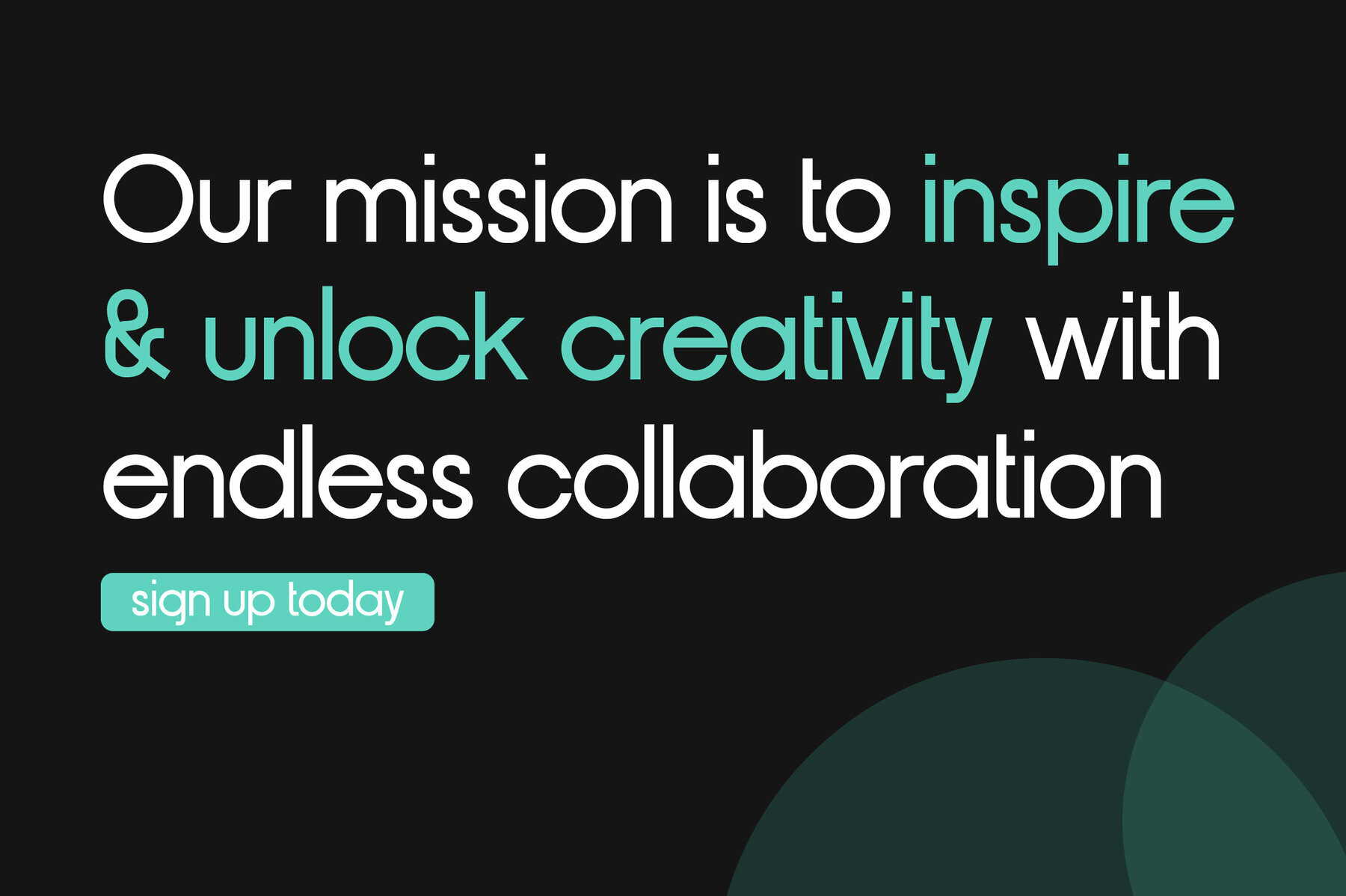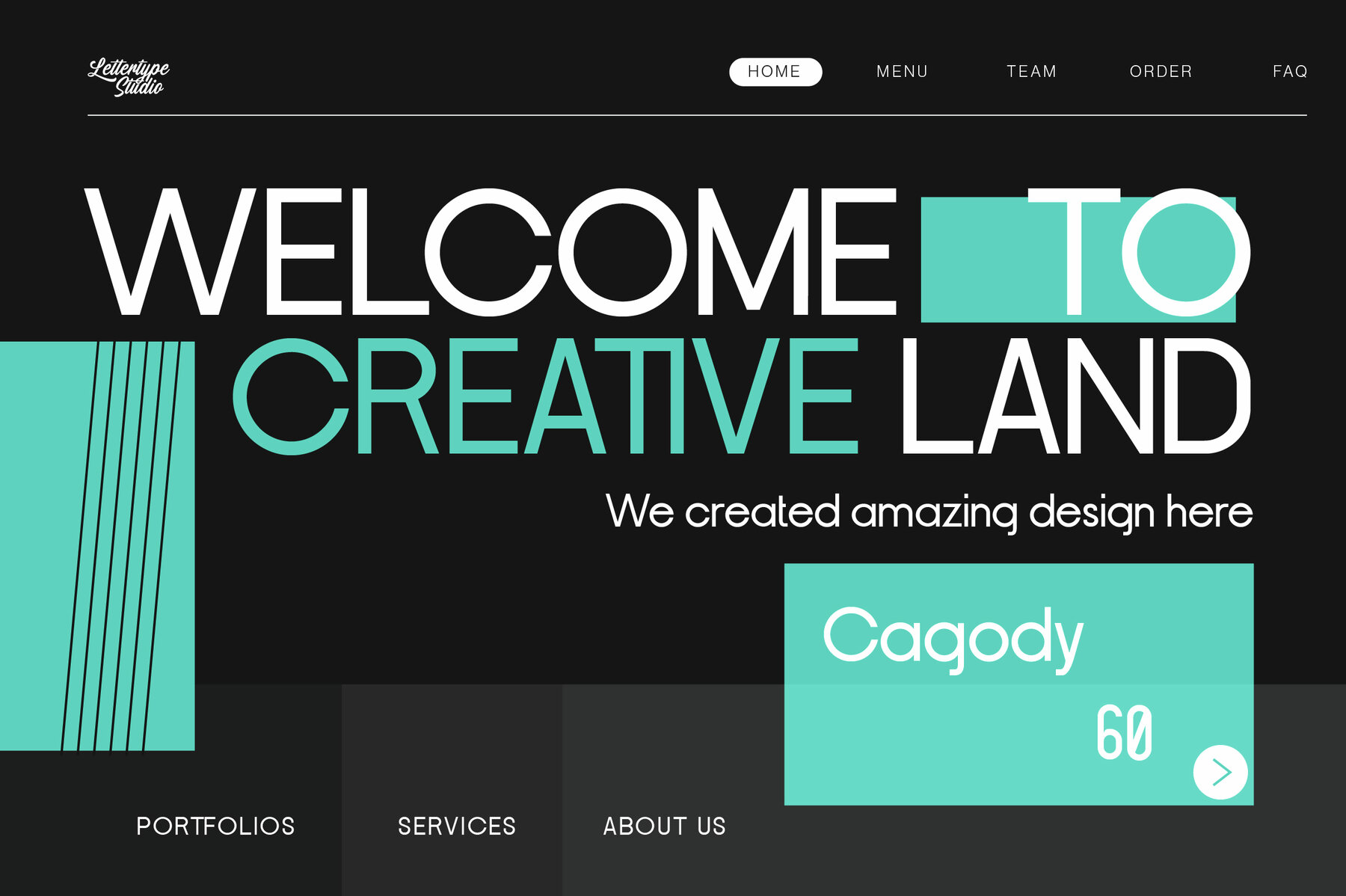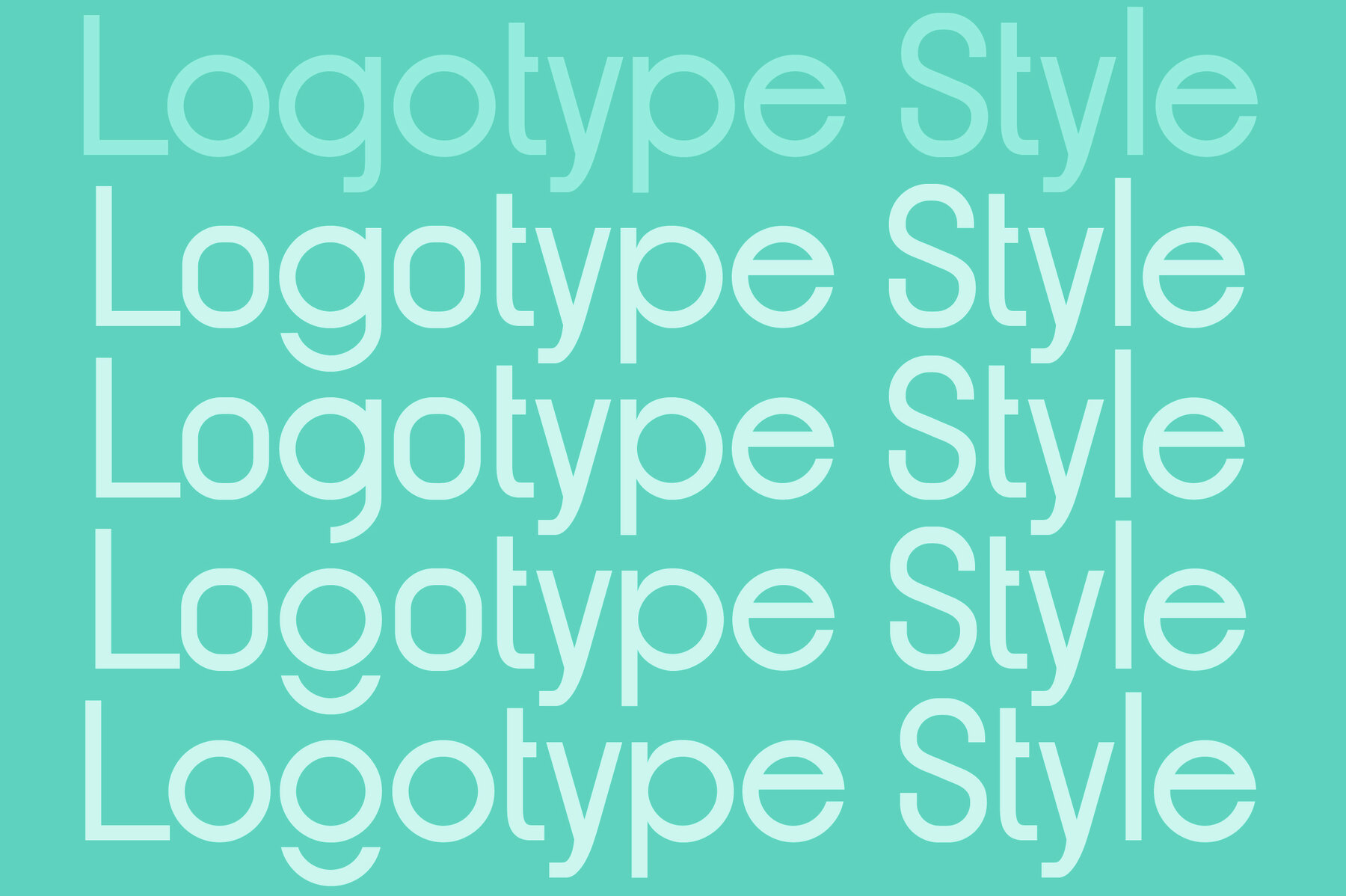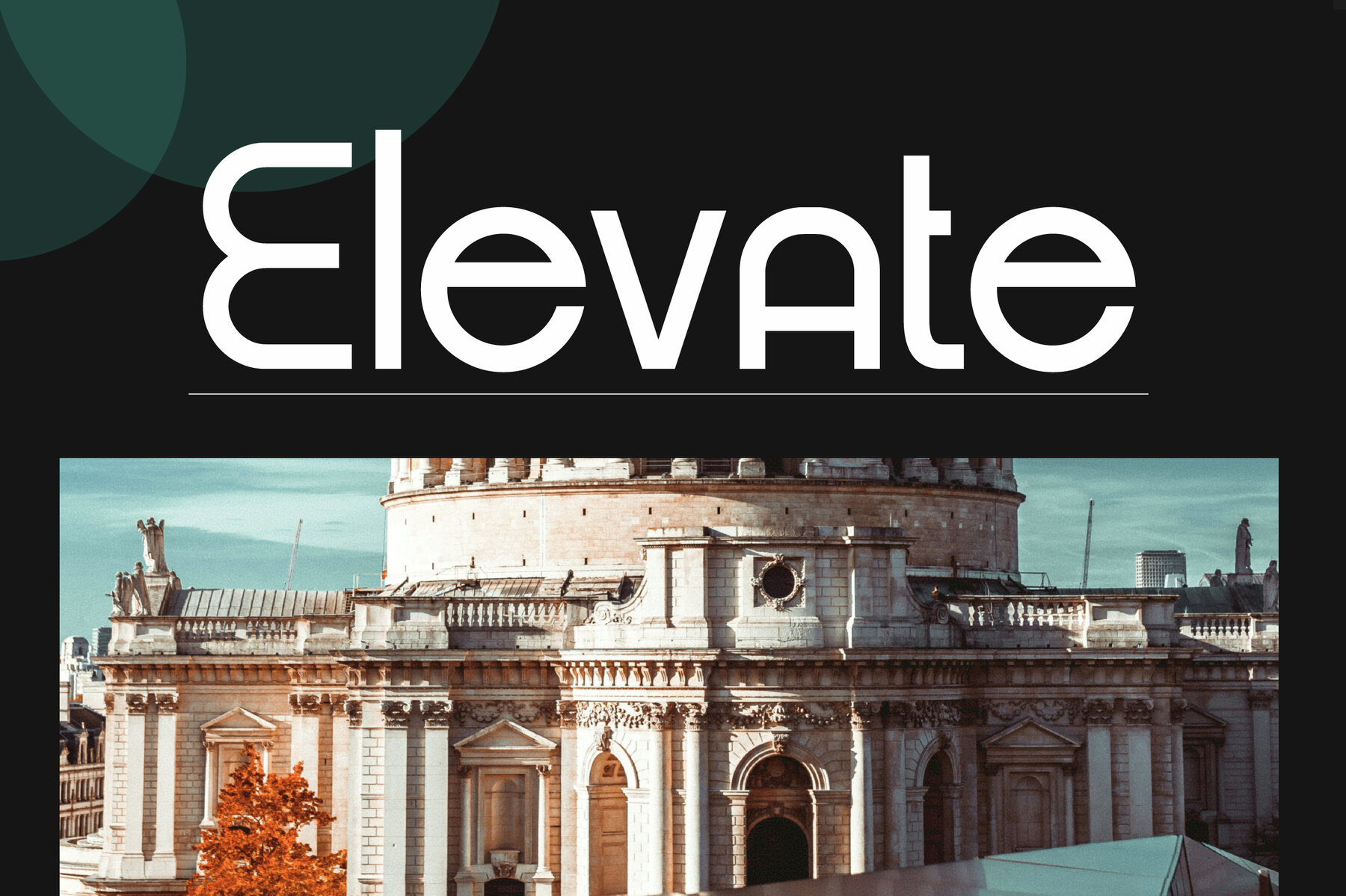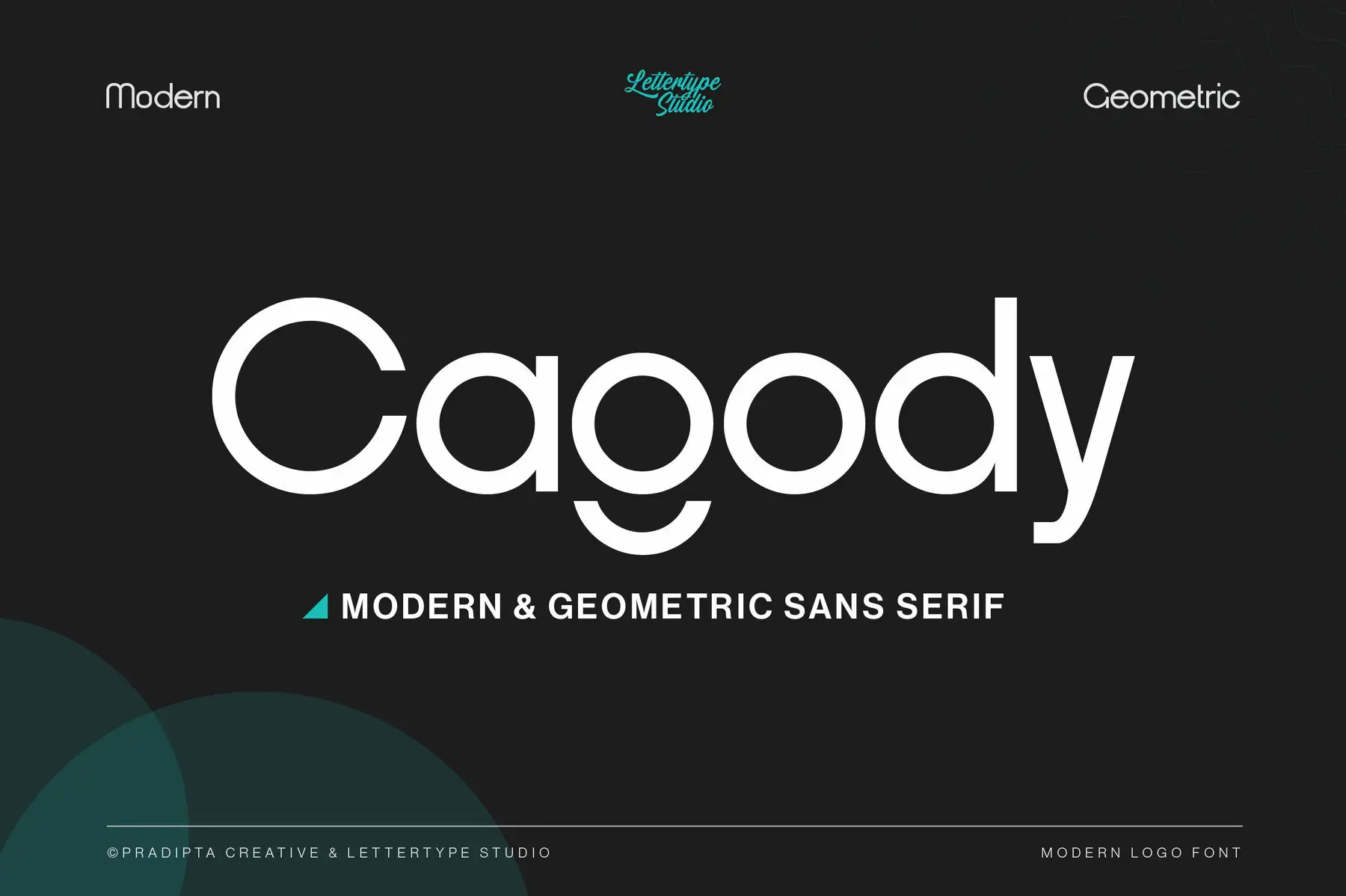
Cagody Font
Cagody Regular
Cagody is a refined sans serif font that seamlessly merges modern aesthetics with geometric precision. Designed for those who value elegance and flexibility, this typeface offers extensive customization options that allow your creativity to shine. Boasting over 20 unique alternate glyphs, Cagody is tailored for a variety of applications. Whether you are crafting logos, social media content, or wedding invitations, this font adapts to your needs, providing a cohesive look across different mediums.Cagody: Modern Geometric Sans Serif
Cagody Features